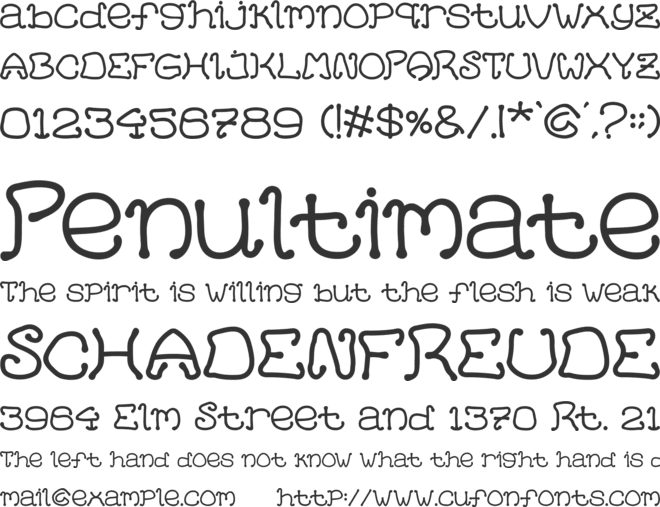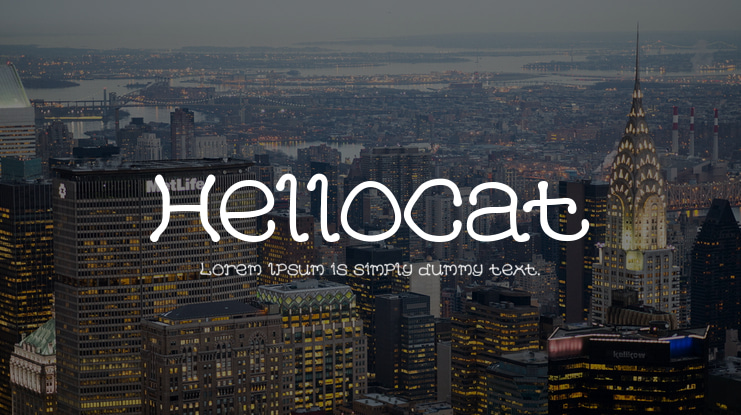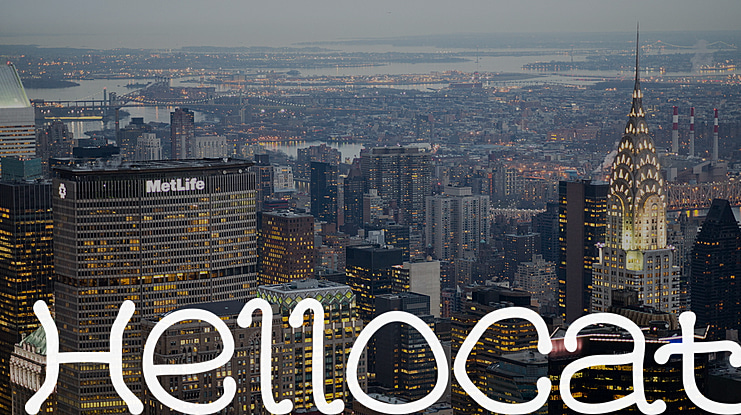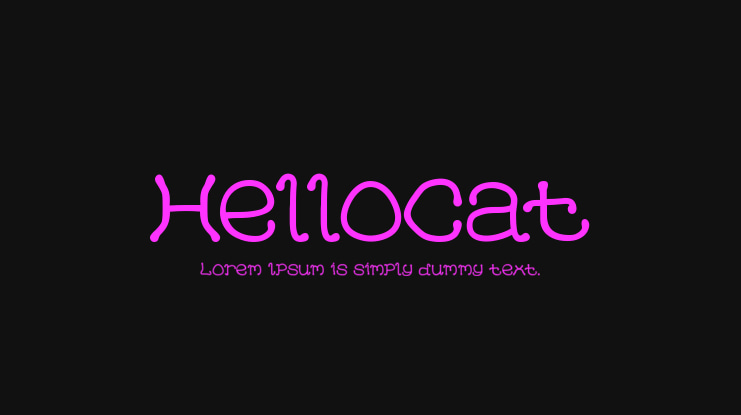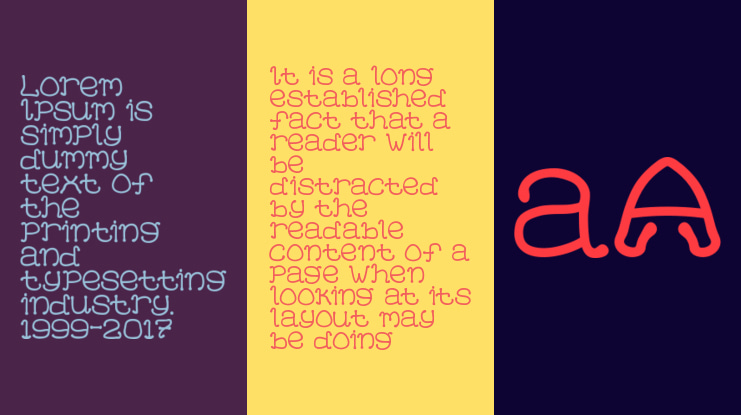
HelloCat Font
This unique font special for pet lover and everybody love cute things and it can be using for cartoon,kids funny invitation card. For license please email :  :: Thank you to interest my fonts, Have a Nice Day !